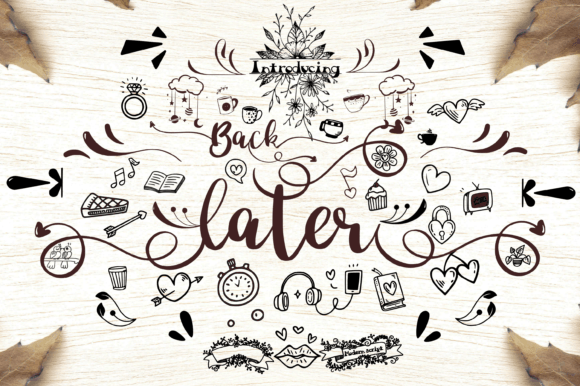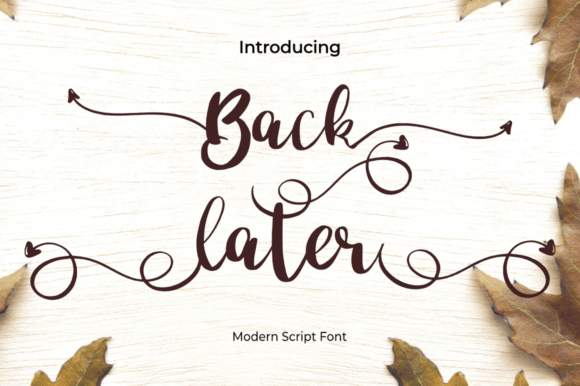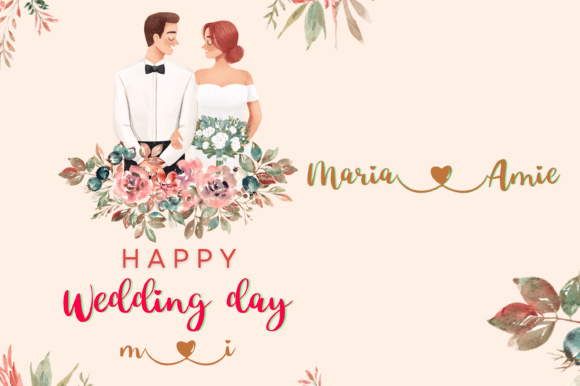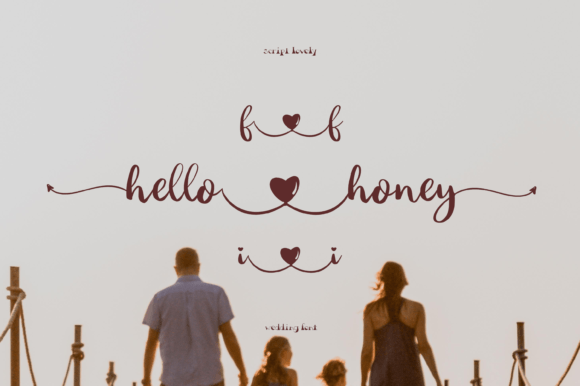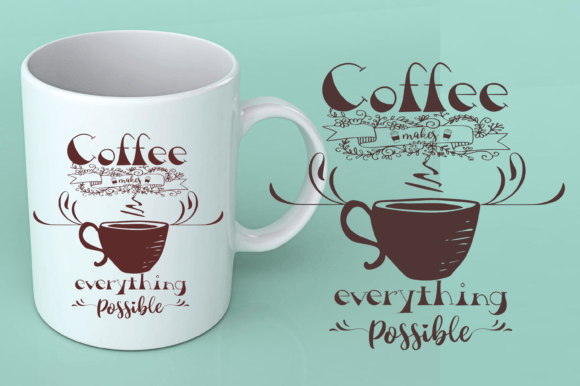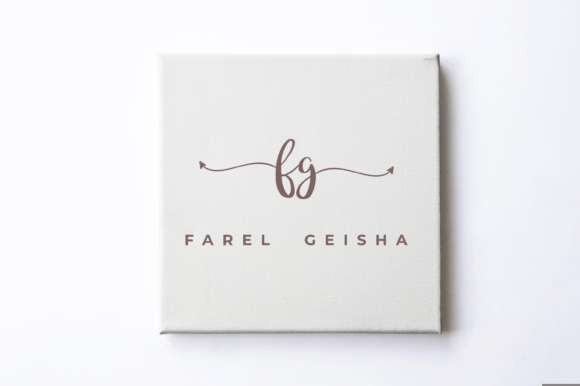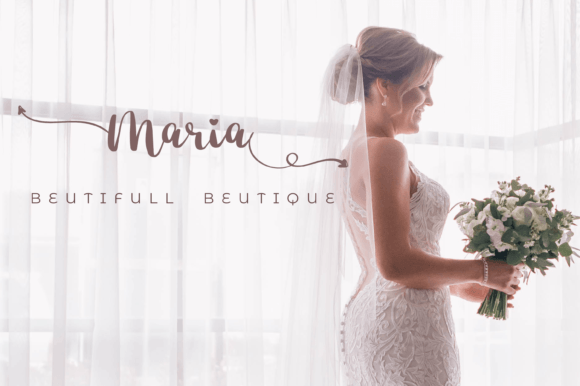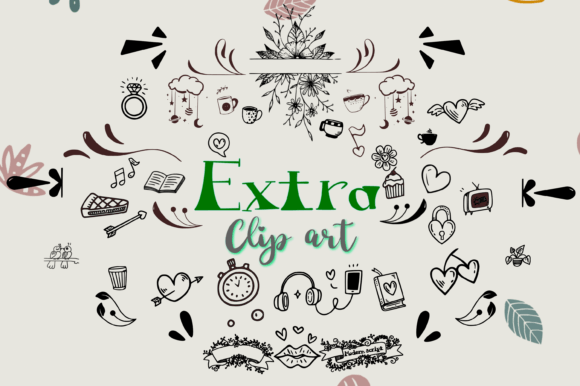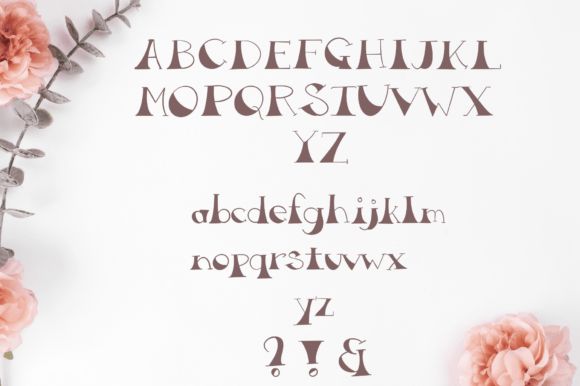
Back Later is a hand brush script and serif duo font created with brush and ink. This typeface is ideal for use in bold watercolor designs or handwritten styles such as blog titles, posters, wedding elements, t-shirts, clothing, book covers, business cards, greeting cards, branding, cafe/restaurant signs, merchandise, etc.
Back Later Font